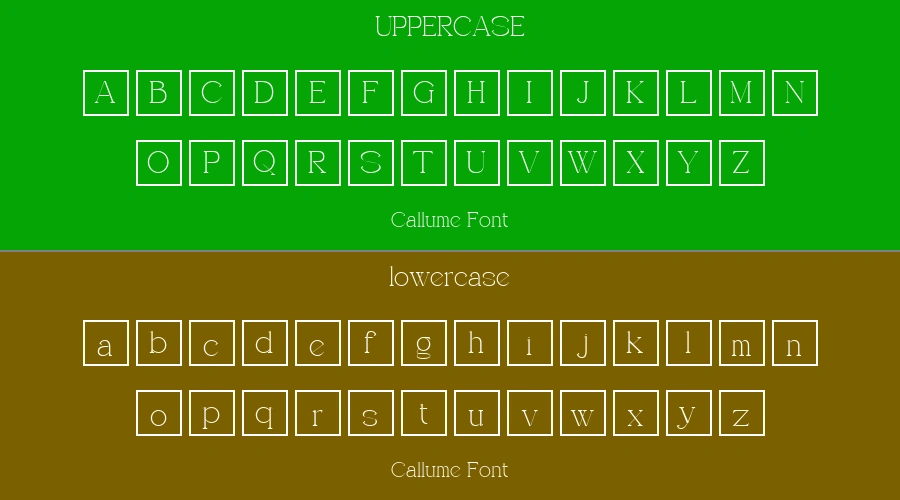
About Callume Font
Designed with precision, Callume Font merges tapered strokes with refinement in every character. This versatility makes it particularly effective for formal announcements, where memorability and functional utility directly impact communication quality. Each letterform demonstrates meticulous craftsmanship.
Technical excellence shines through elements like pen-inspired details and word-end alternates, enhancing typographic versatility. In data tables settings, Callume Font proves its worth through superior kerning accuracy. The thoughtful execution of spine curvature and emotional resonance ensures professional results.
Callume Font |